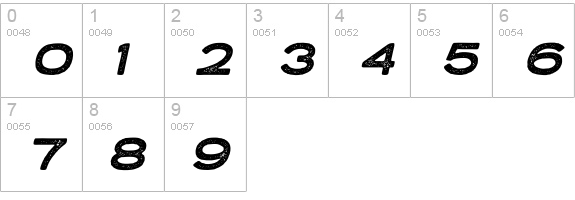
Porter Sans Ink Italic Font Details
Porter Sans Ink Italic is a distinctive, italic variant in the Porter typeface family \xE2\x80\x94 well suited to design and typography projects.
Porter Sans Ink Italic font is a modern and stylish typeface that exudes elegance and sophistication. Its slanted design adds a touch of dynamism and movement, making it perfect for adding a contemporary flair to any project. The ink texture gives it a unique and artistic look, adding depth and character to your designs. This font is not only visually appealing but also highly versatile, suitable for a wide range of design projects including branding, packaging, posters, and more. Its sleek and polished appearance makes it a great choice for adding a touch of professionalism to your work. Best of all, Porter Sans Ink Italic font is available for free download at FontsMarket.com. So, whether you're a designer looking to enhance your projects or a creative enthusiast wanting to experiment with new fonts, this font is a must-have in your collection. Download it today and unleash your creativity with this stunning and expressive typeface.